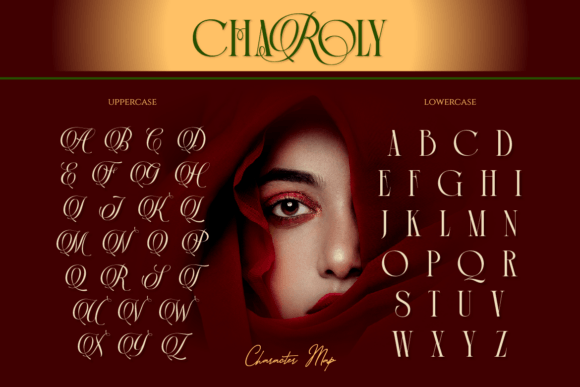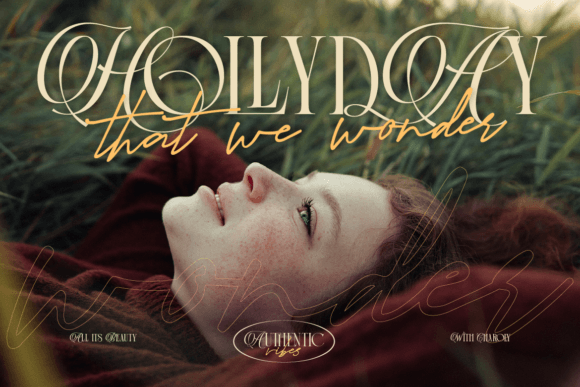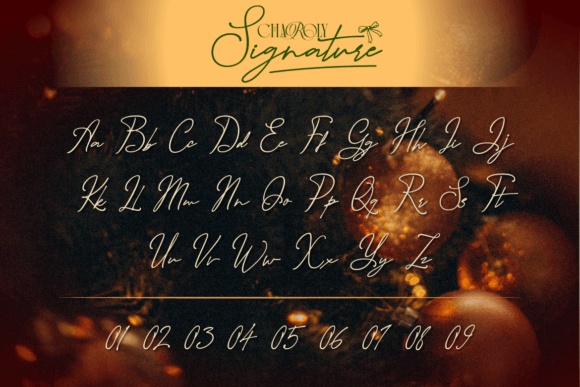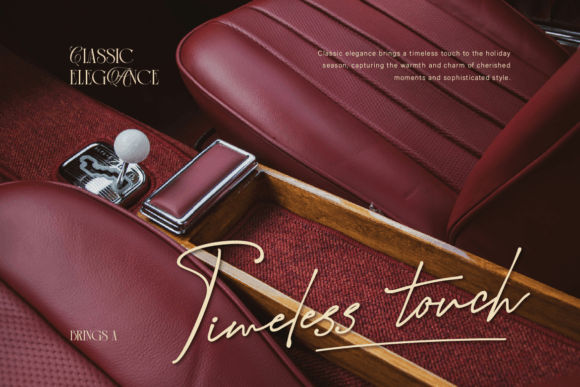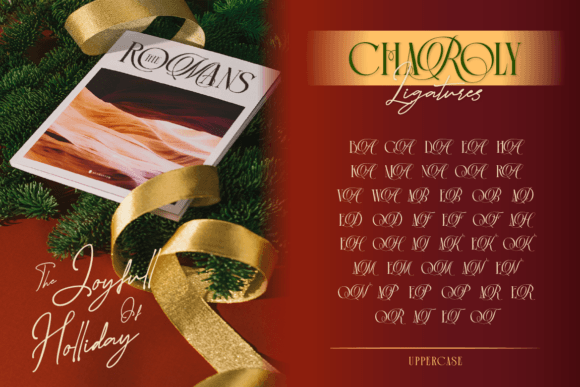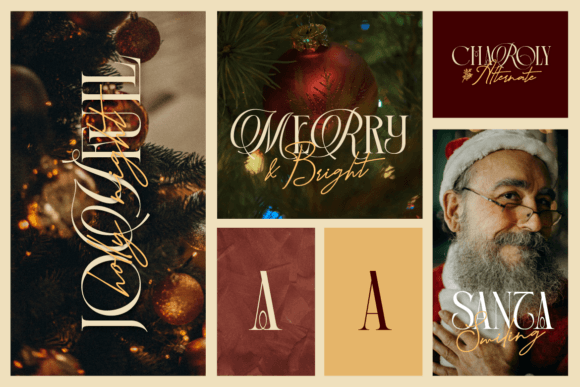
Unlock the Magic of Charoly Signature Font
Have you ever found yourself in a creative frenzy, staring at a blank page, desperate to bring your design vision to life? It’s a moment we’ve all experienced, and it’s precisely in those moments that the right font can be the game-changer.
Enter Charoly Signature Font, a masterful blend of classic elegance and script charm that will elevate your designs to new heights. This stunning duo font is designed to work seamlessly across both print and digital projects, making it the perfect addition to your design arsenal.
Whether you’re designing Christmas cards, wedding invitations, or branding materials, Charoly Signature Font is the ultimate companion for creatives. Its versatility and sophistication make it a valuable asset for designers looking to add a touch of magic to their work.
Key Features of Charoly Signature Font
- Font Family: Charoly Signature Font is a unique, handwritten font designed to resemble a signature.
- Character Set: The font includes a wide range of characters, including uppercase and lowercase letters, numbers, and punctuation marks.
- Unique Characteristics: Charoly Signature Font features a dynamic, expressive style with varying line widths, subtle flair, and a touch of elegance, making it perfect for adding a personal touch to designs, logos, and signatures.
Review: Charoly Signature Font
Overall, I was excited to dive into the Charoly Signature Font, and I was not disappointed. ✨ The font’s modern and elegant aesthetic really shines, making it perfect for creative projects that require a touch of sophistication.
- ✨ Unique design: Charoly Signature Font has a distinct and stylish design that will set your project apart from the crowd.
- ✨ Excellent legibility: The font is highly legible, making it perfect for body text or headings where readability is crucial.
- ✨ Customizable: The font comes in various weights and styles, giving you plenty of options to experiment with.
However, there are a few limitations that I wanted to note:
- ⚠️ Limited language support: Charoly Signature Font is primarily designed for English and may not support other languages as well.
- ⚠️ Limited kerning: In some cases, the kerning (the space between characters) can be a bit off, which may affect the overall look of your text.
Overall, I’m really impressed with the Charoly Signature Font. While it has its limitations, its unique design and excellent legibility make it a great choice for creative projects. I’d definitely recommend it for anyone looking to add a touch of elegance to their work.
Use the Charoly Signature Font for creating visually appealing social media graphics, invitations, and promotional materials.
Use the Charoly Signature Font for creating professional-looking logos, business cards, and marketing materials.
Use the Charoly Signature Font for creating engaging presentations, reports, and documents.